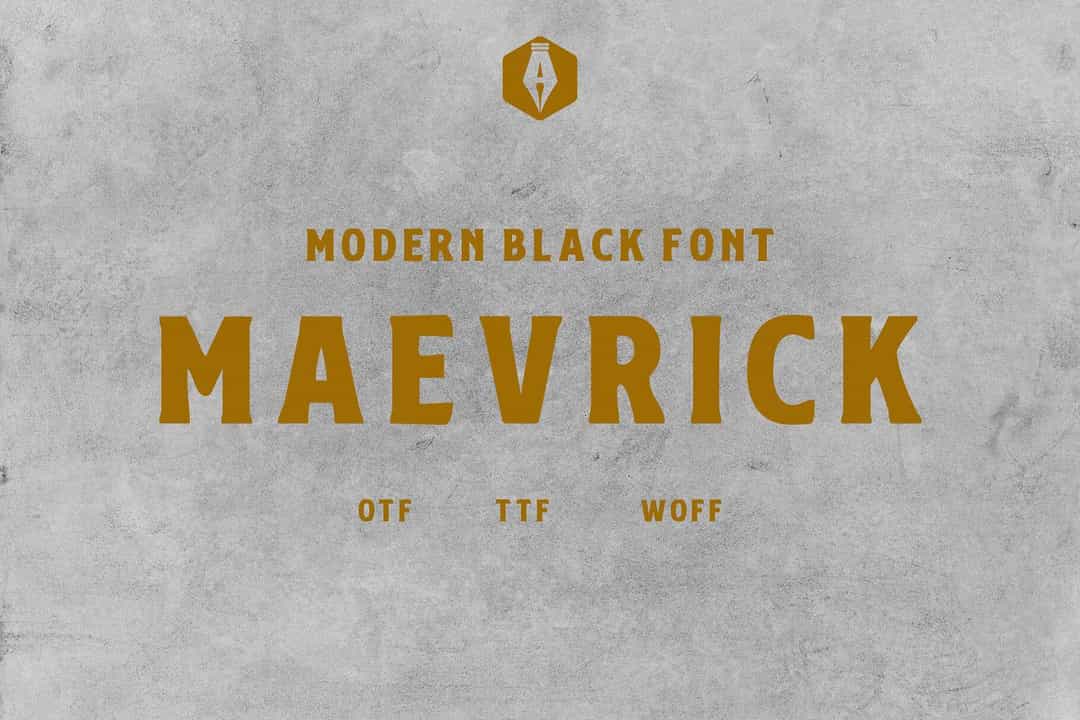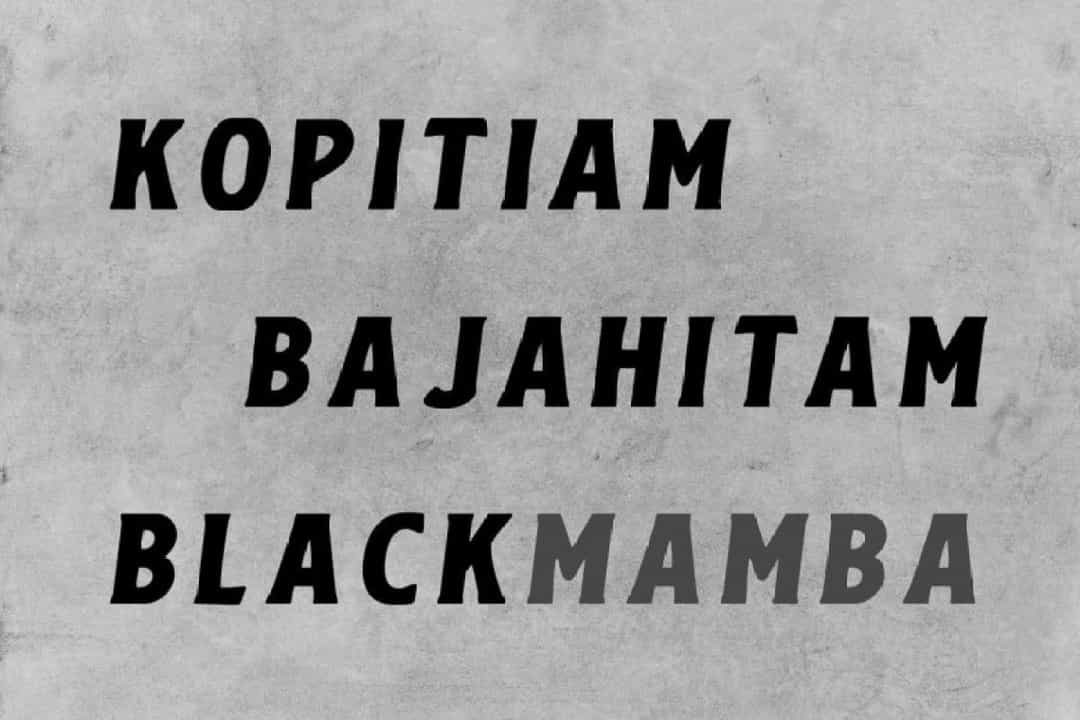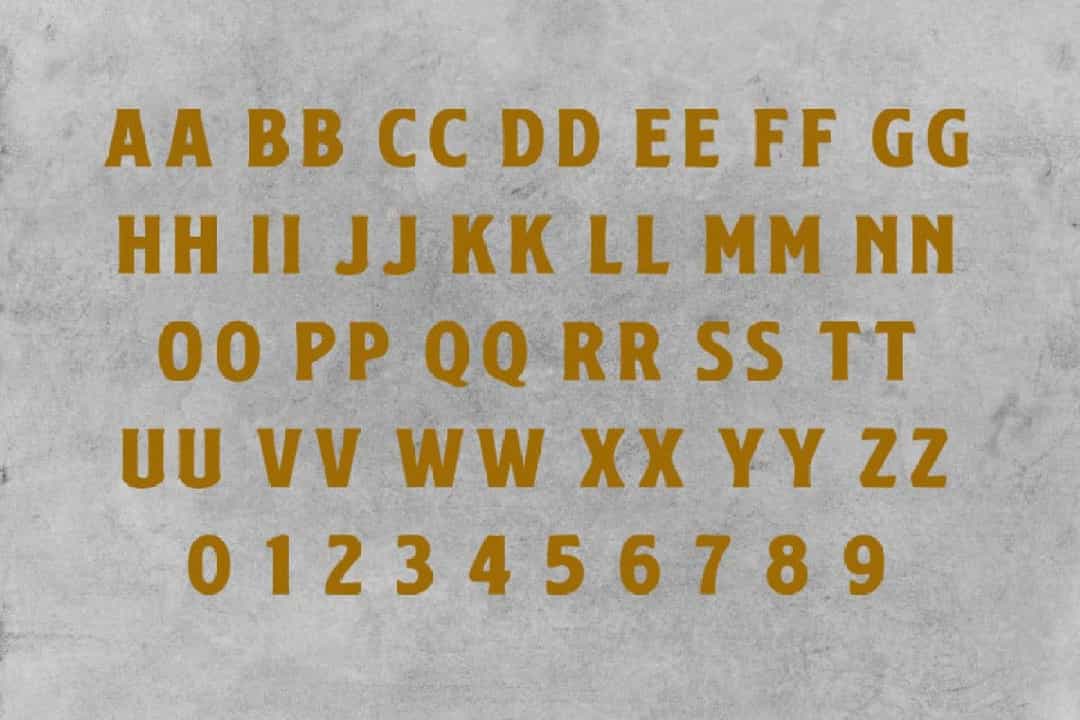
Maevrick is a magnificent piece of typography that perfectly blends modern design elements and an authoritative presence into one font. Representing elegance with crisp lines, geometric forms, modern aesthetic and weighty and bold characters which exude confidence, Maevrick is ideal for projects requiring attention or assertiveness in design elements.